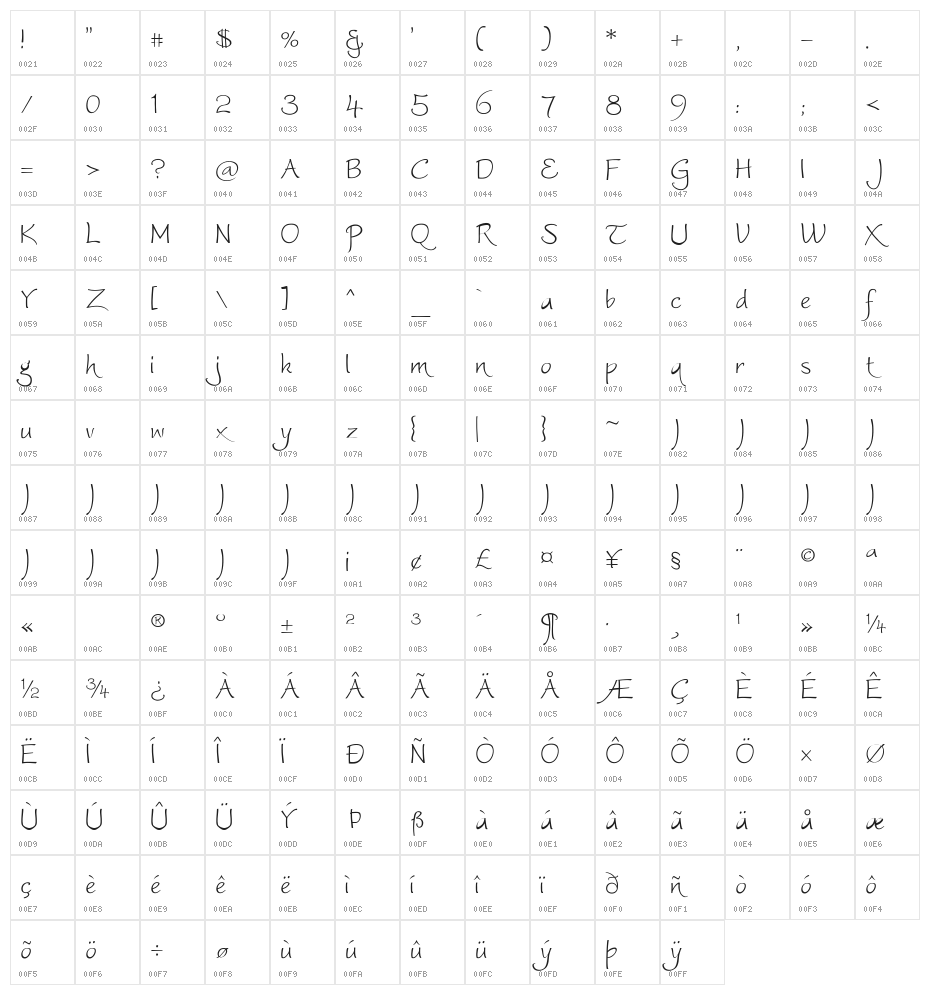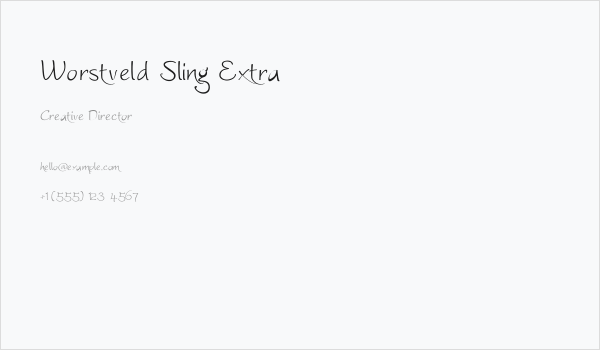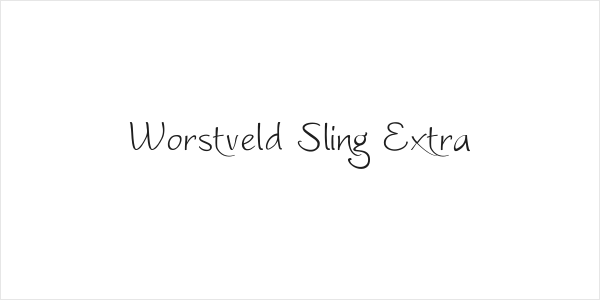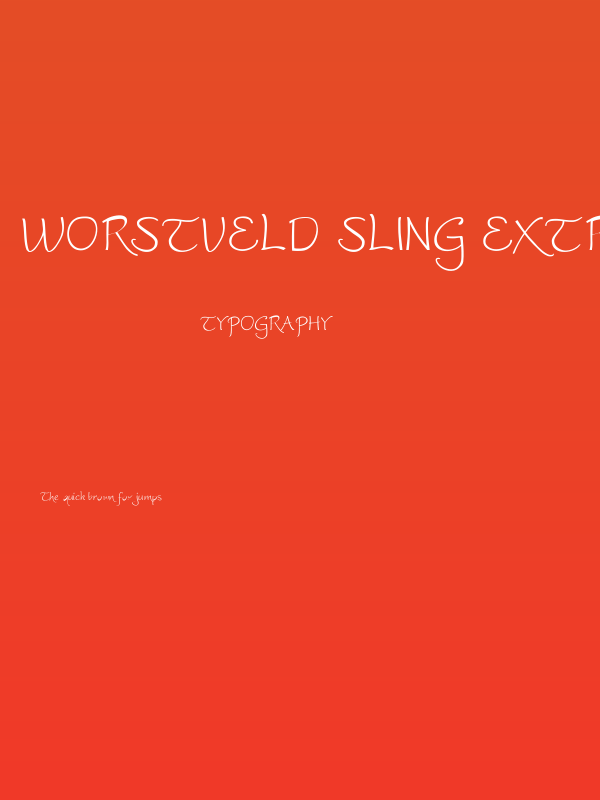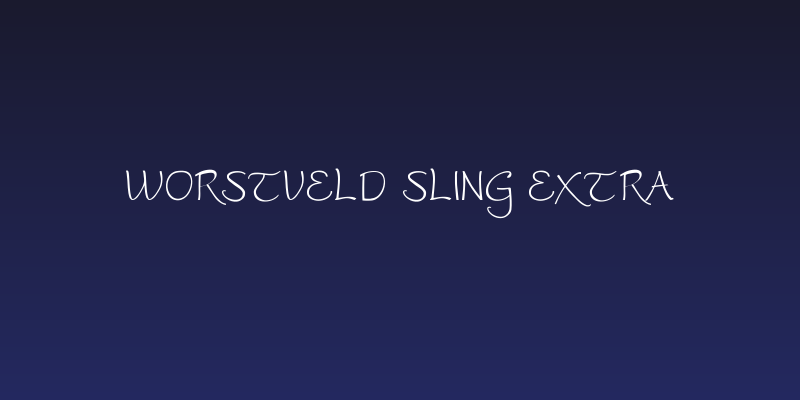
Worstveld Sling Extra Font
Worstveld Sling Extra Description
This font features a whimsical and playful design, characterized by its flowing, cursive-like strokes and elegant curves. The uppercase letters are tall and slender, with a slight slant that adds a dynamic feel. The lowercase letters maintain a consistent style, with smooth connections and rounded forms that enhance readability. Numbers are clear and distinct, matching the overall aesthetic with their curved lines. Special characters are thoughtfully designed, integrating seamlessly with the alphabet. The font's unique style makes it suitable for creative and artistic projects, offering a blend of sophistication and charm.
Use CaseHeadlines, Artistic projects, Invitations
Proposed ProjectsIdeal for invitations, greeting cards, artistic branding, and creative projects.